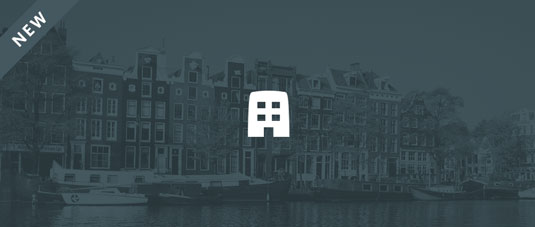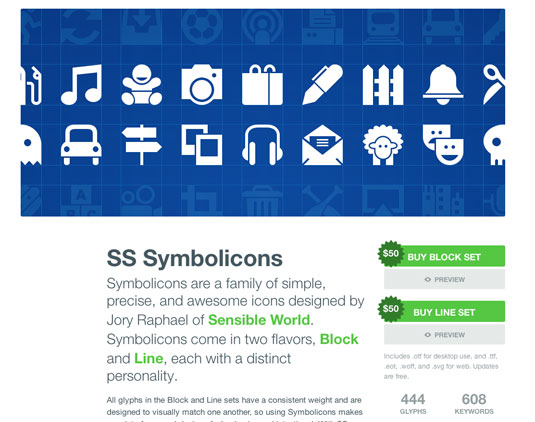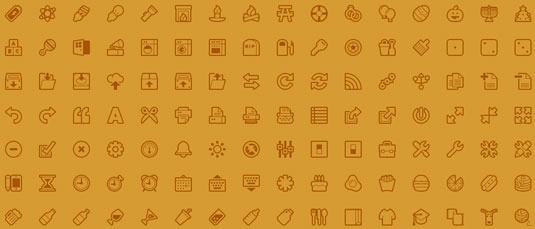
Making symbol fonts simple
Symbolset.com by Oak Studios offers some great symbol fonts, and they're beautifully presented into the bargain.
Since the launch of Apple's Retina display, symbol fonts have been getting a lot of attention lately, as they're a great way to serve up images that look good on any screen resolution. Note to mention that any CSS effect that works on text will also work on symbol fonts.
Symbolset is a website by Oak Studios in Brooklyn, set up to demo and sell Symbolsets - semantic symbol fonts. And as well as offering some fine resources for web designers, it's a gorgeous site that offers a great user experience.